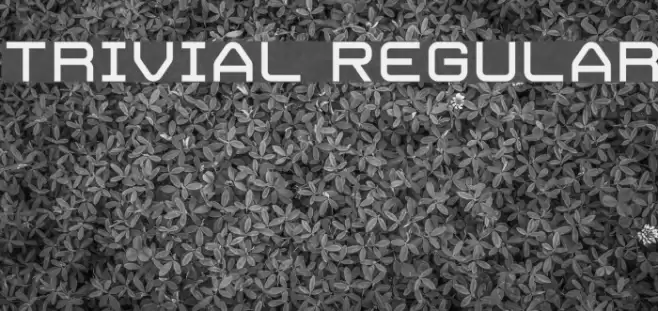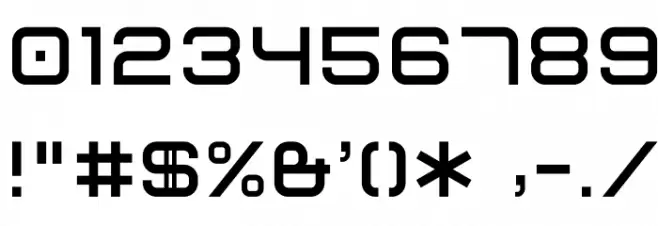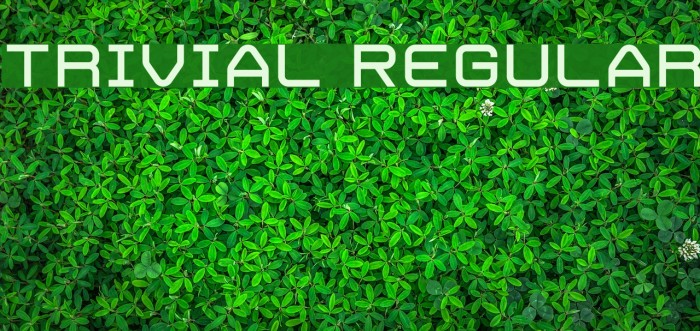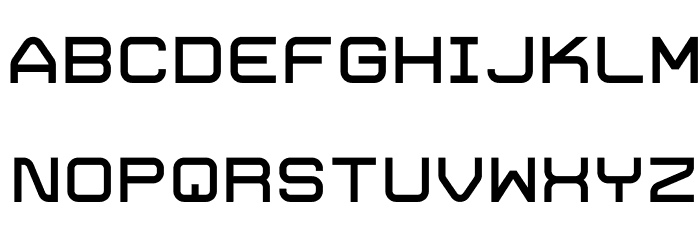
Trivial Regular Font
Trivial Regular Description
This font features a modern and geometric design, characterized by its clean lines and uniform stroke width. The characters are constructed with a consistent height and width, giving it a structured and balanced appearance. The rounded edges soften the overall look, making it approachable while maintaining a contemporary feel. The numerals and special characters are designed to match the alphabet's style, ensuring a cohesive visual identity across all text elements. This font is versatile, suitable for both digital and print media, and can effectively convey a sense of innovation and clarity.
A modern, geometric font with clean lines and uniform stroke width from Uncategorized fonts.
- Proposed Projects: Ideal for tech branding, user interfaces, digital content, and modern print media.
- Use Case: Headlines, Logos, Digital interfaces